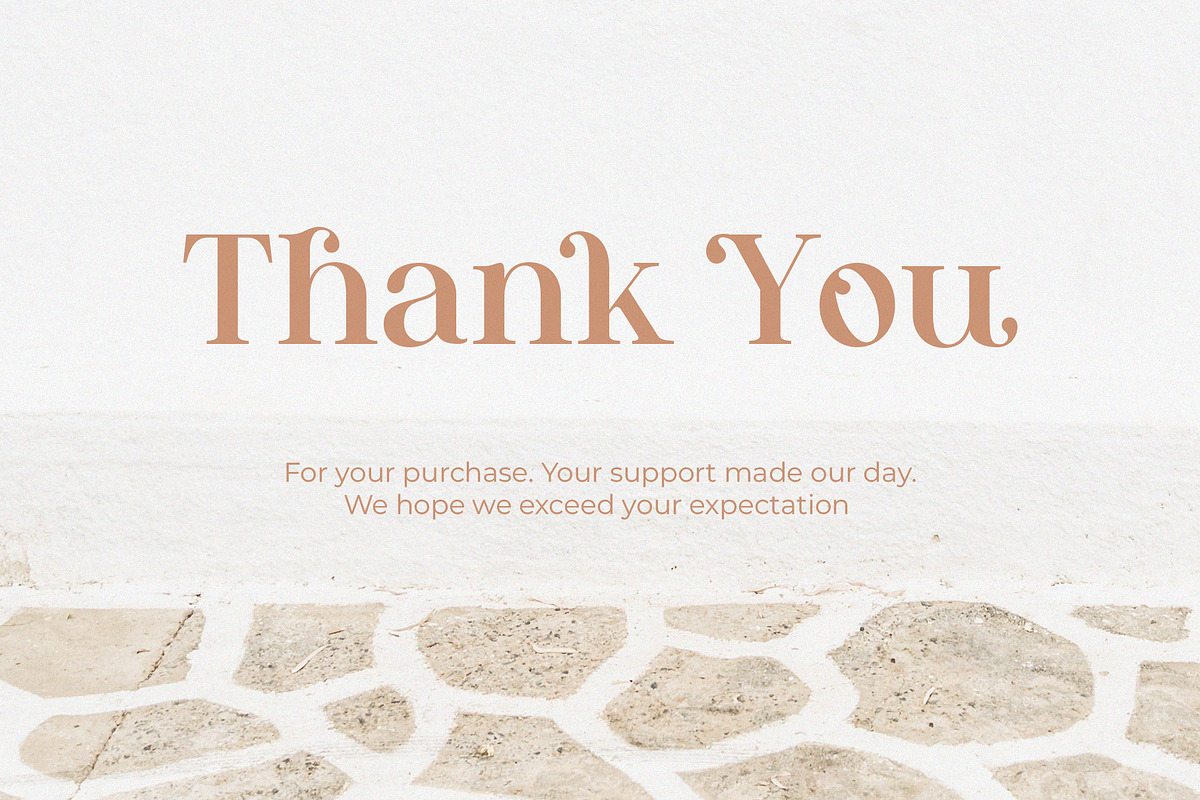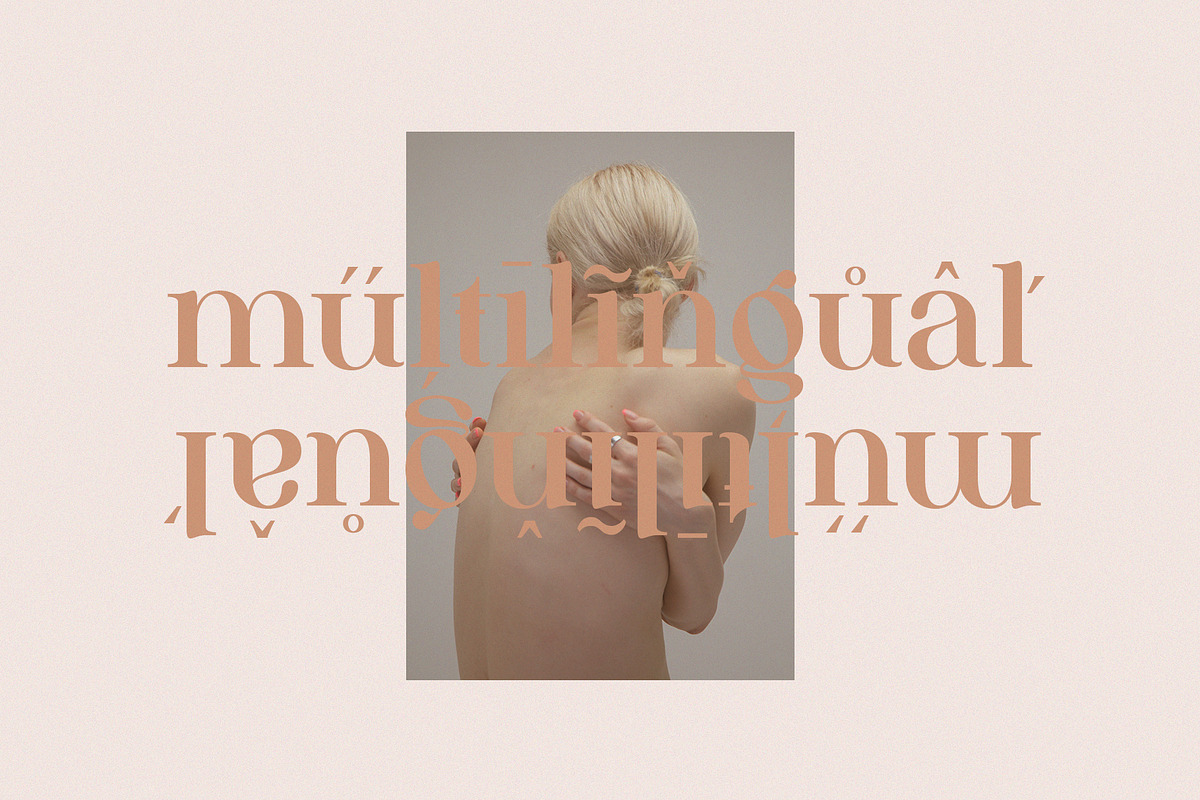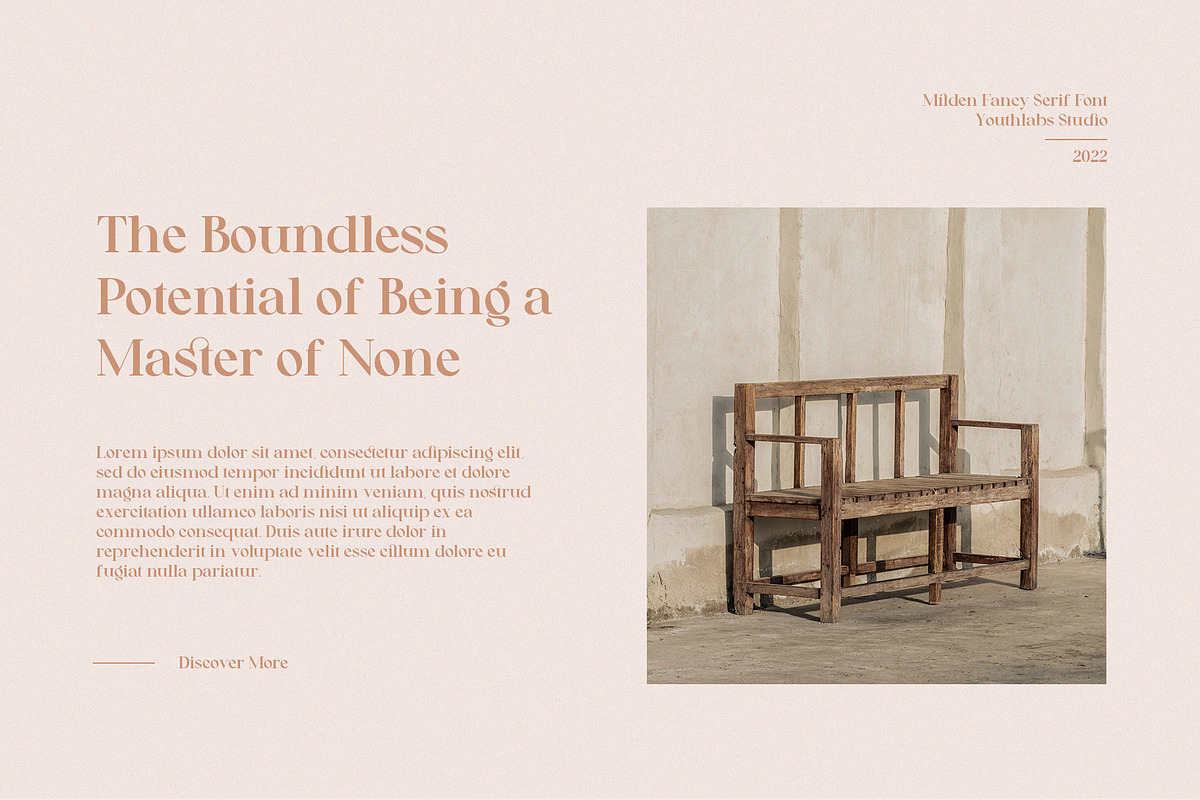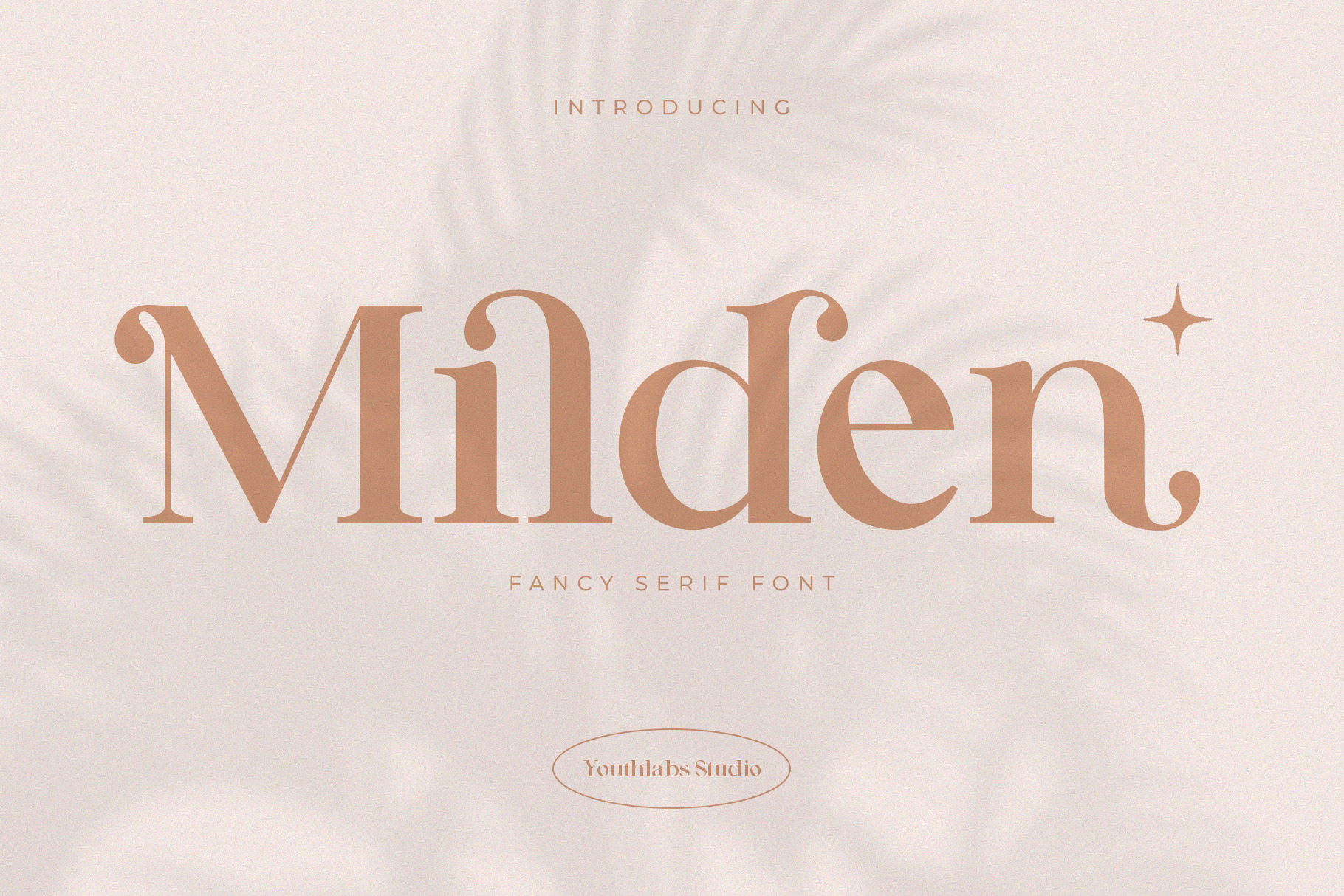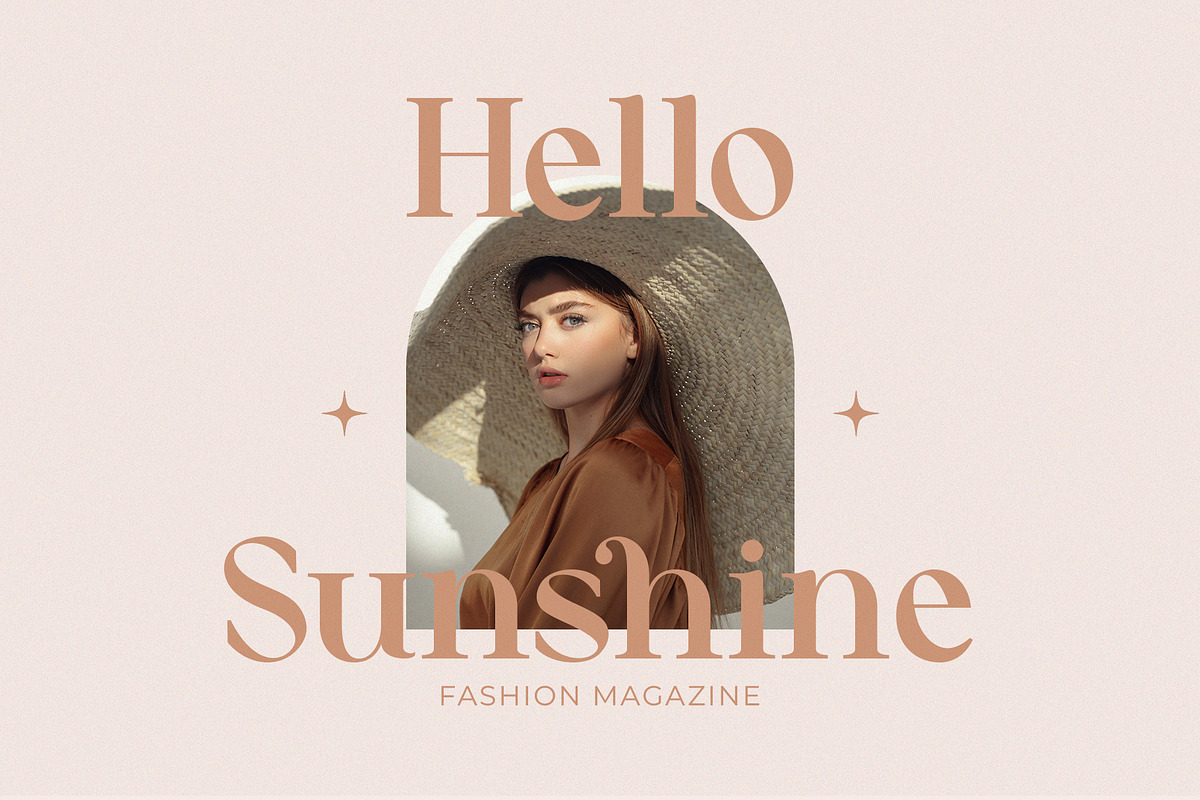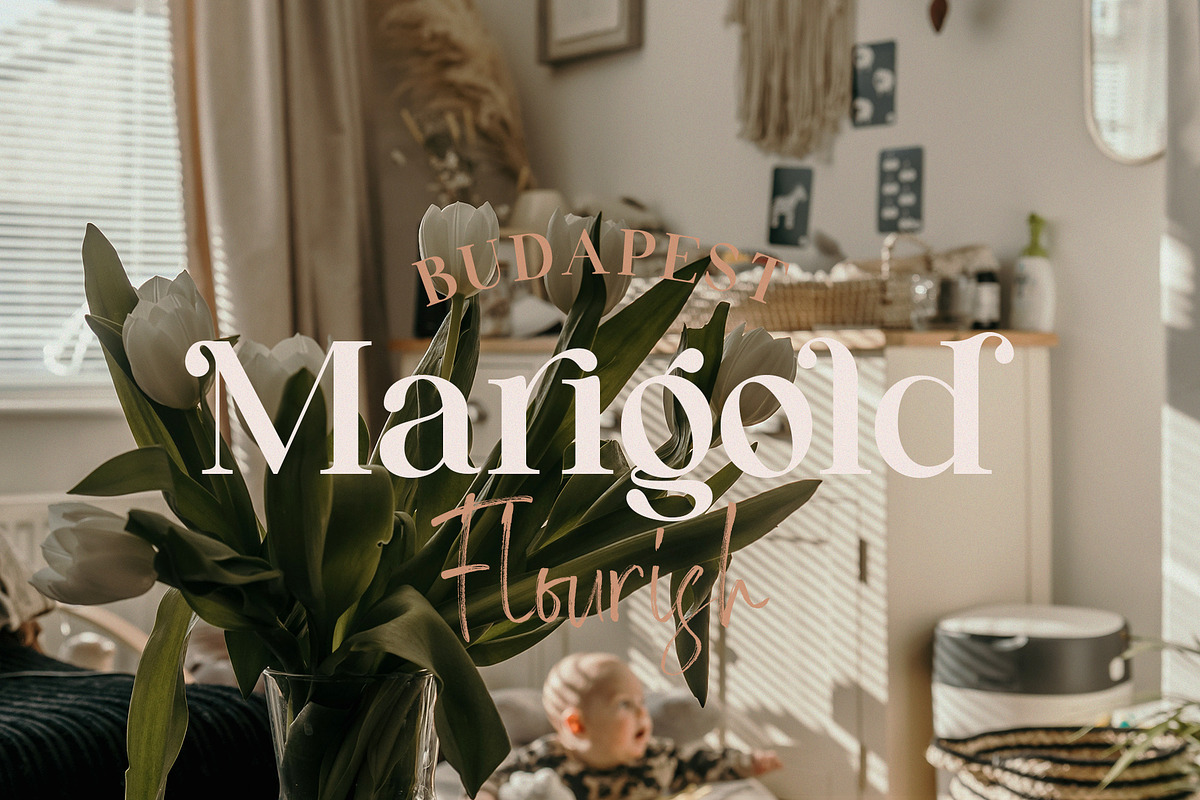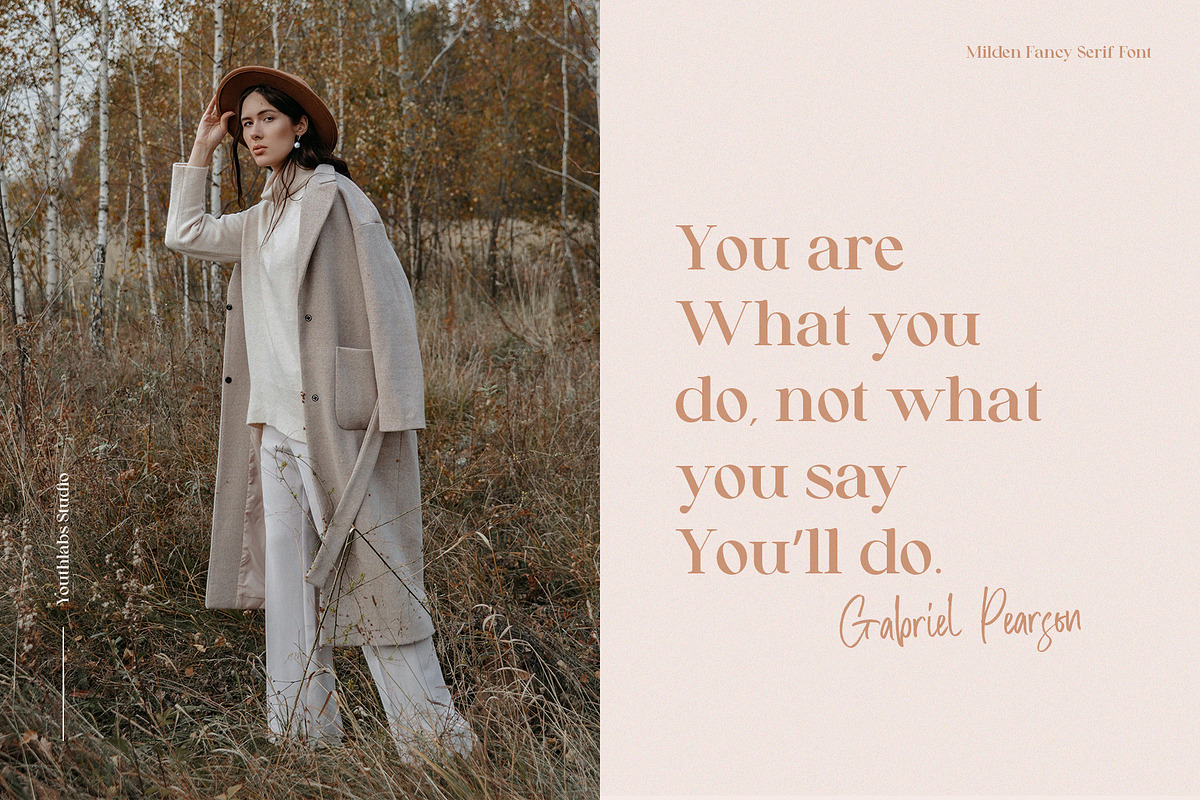
Milden | Fancy Serif Font
Introducing MILDEN fancy serif font. MILDEN is a serif font that gives fancy touch on your design. It looks so good for fashion brand logo. With many alternative fonts, MILDEN will make it easier for you to use various design functions, be it for logos, typography, magazine, fashion, branding, advertising, and more.
- Uppercase and Lowercase Alternate
- Multilinguals Support
- Up to 450 Glyphs